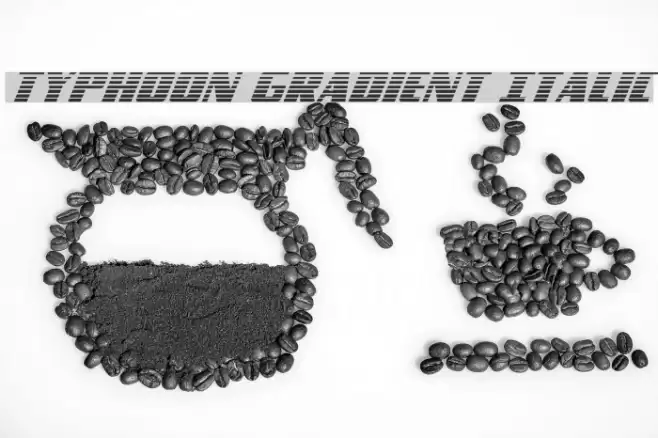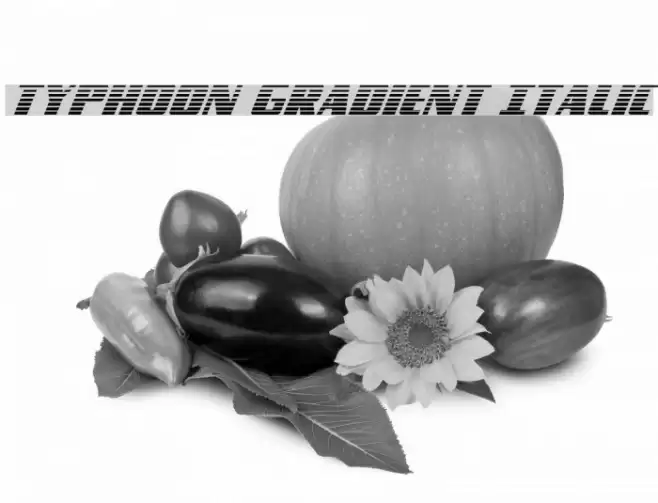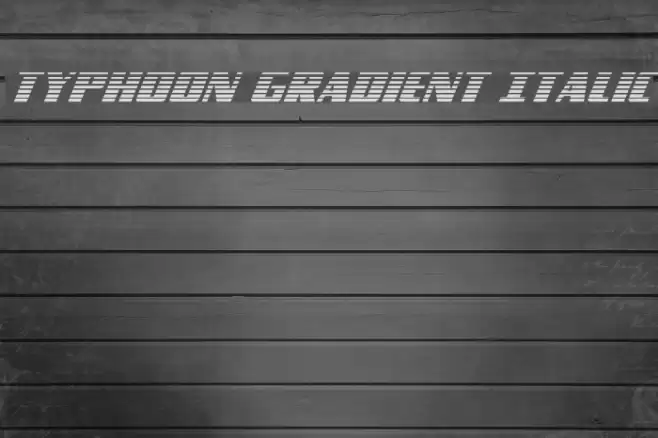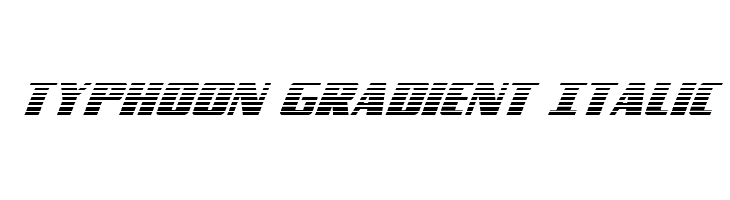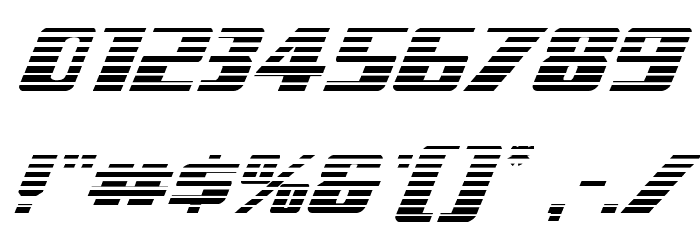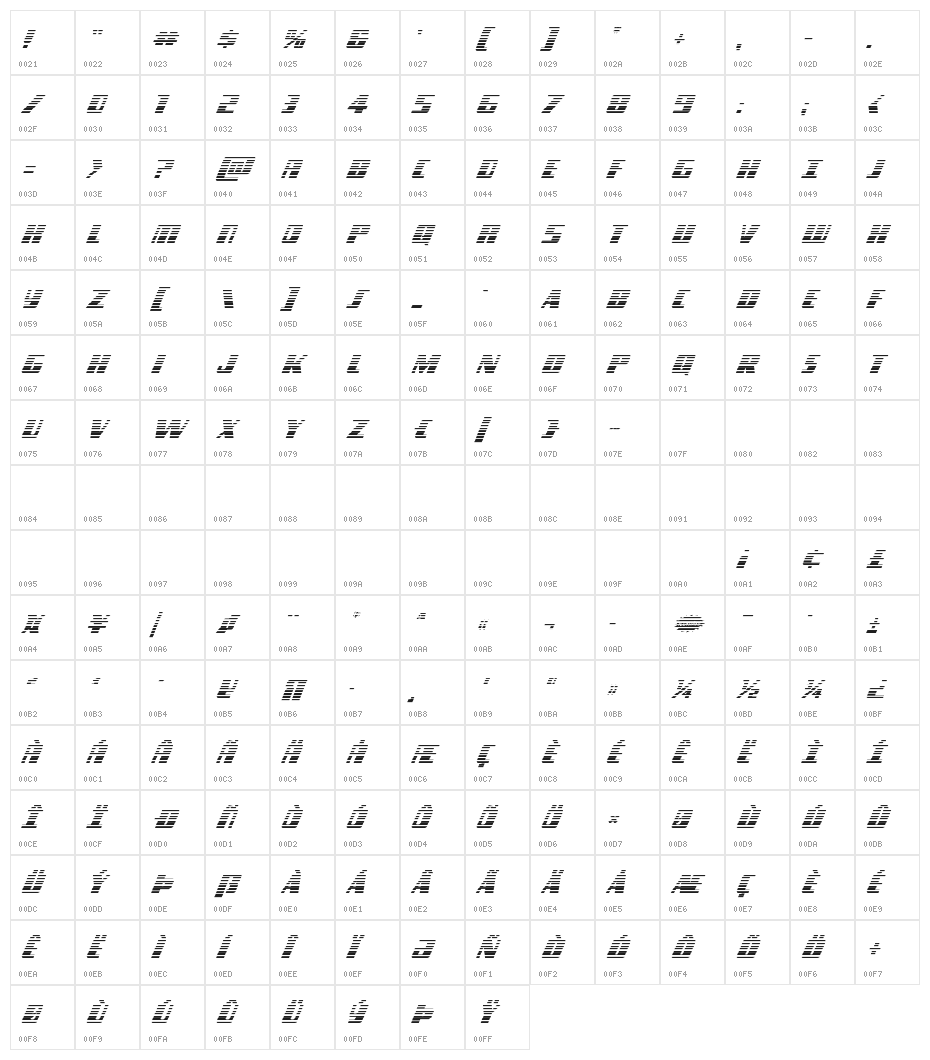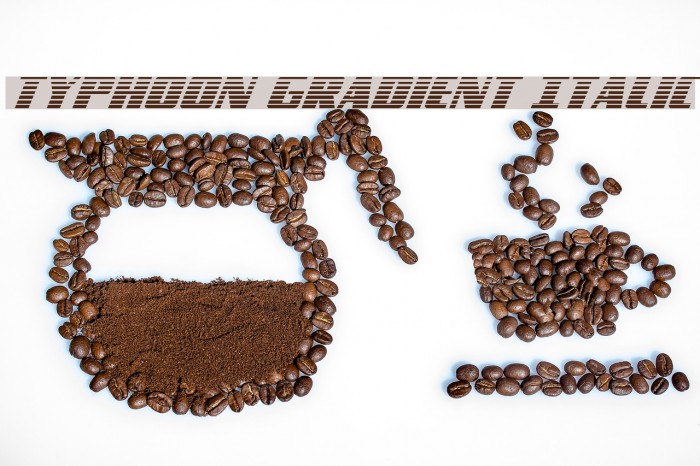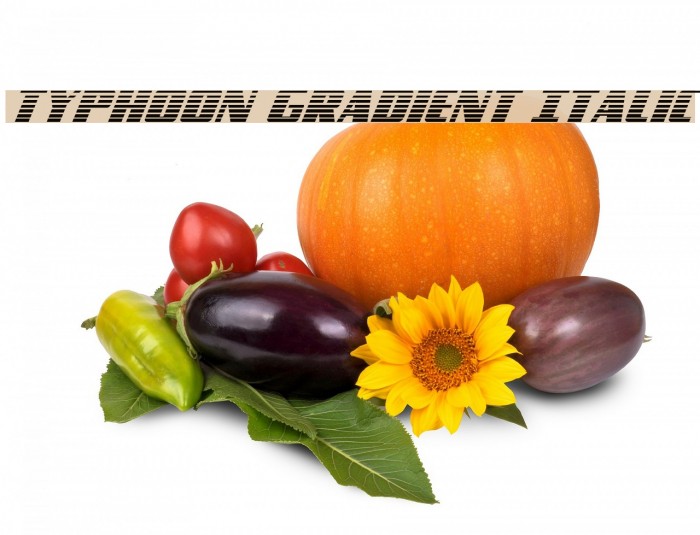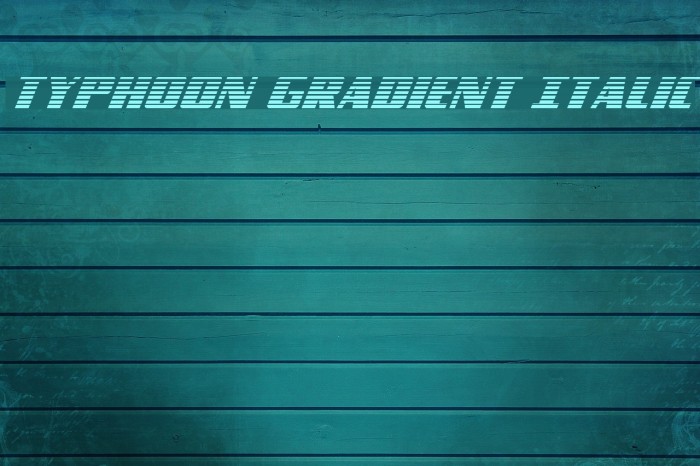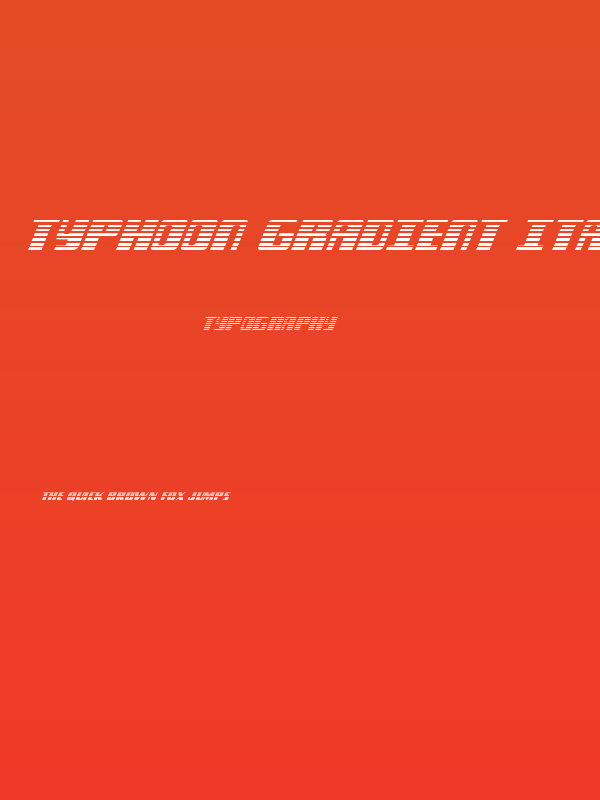
Typhoon Gradient Italic Font
Typhoon Gradient Italic Description
This font features a dynamic and bold design with a distinct slanted, italicized style. The characters are composed of horizontal lines that create a gradient effect, giving a sense of movement and energy. The uppercase and lowercase letters maintain a consistent width, while the numbers and special characters complement the overall aesthetic. The font's unique structure makes it stand out, ideal for projects that require a modern and edgy look.
A bold, italicized font with a gradient line effect, exuding energy and modernity from Uncategorized fonts.
- Proposed Projects: Ideal for sports branding, dynamic posters, futuristic designs, and tech-related projects.